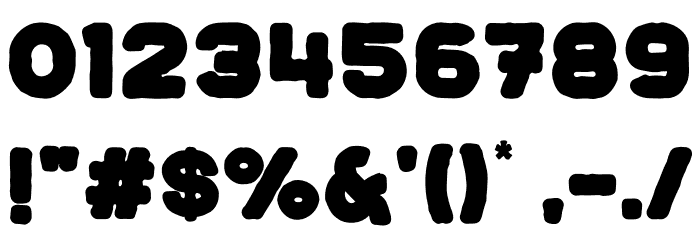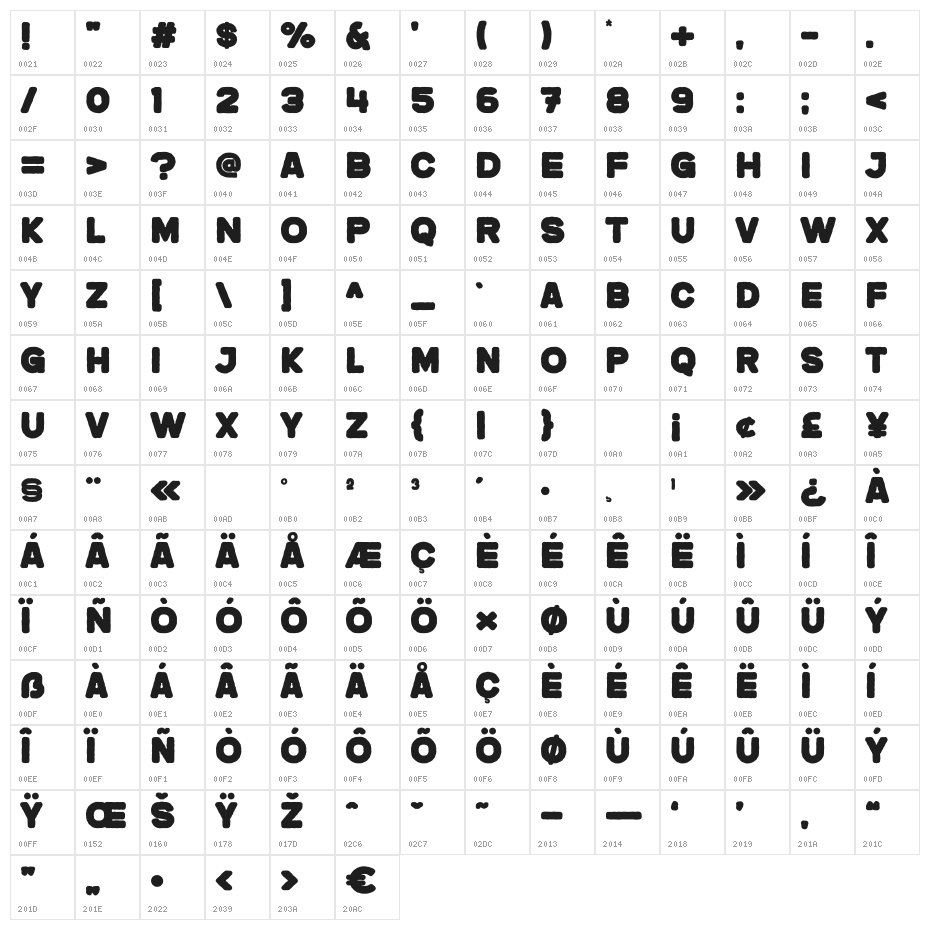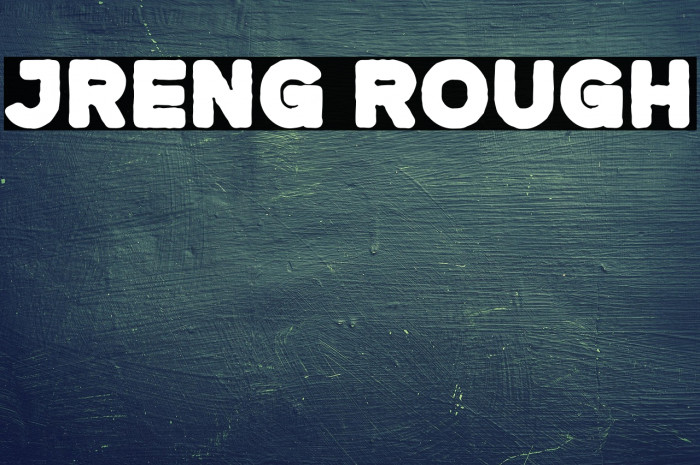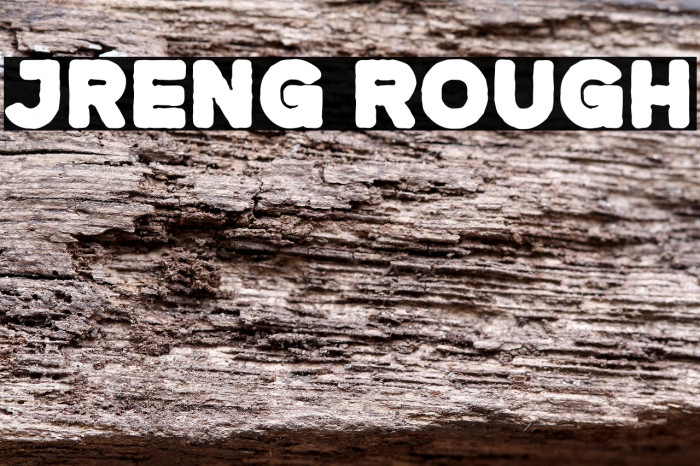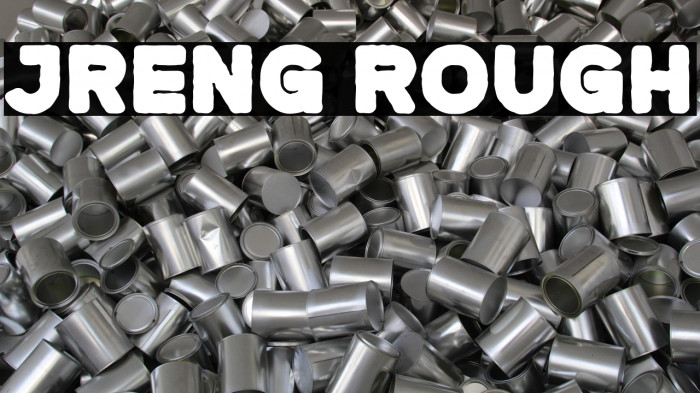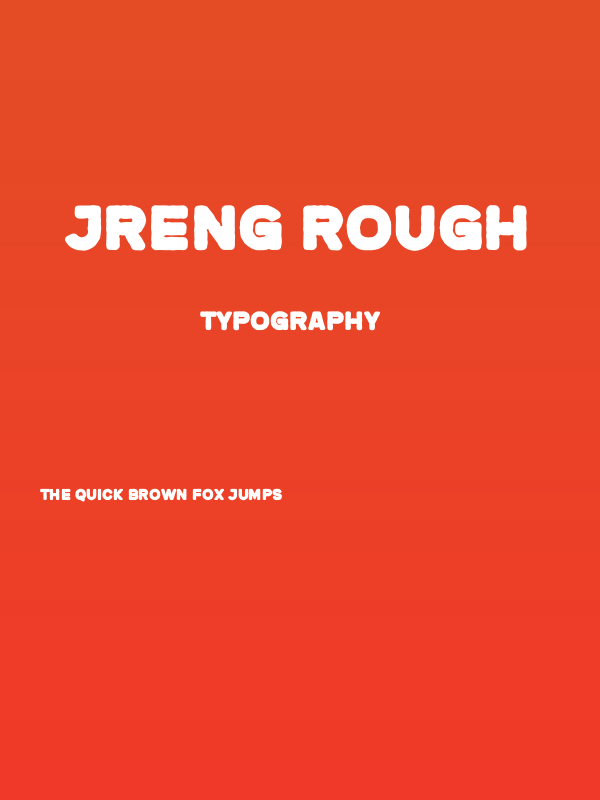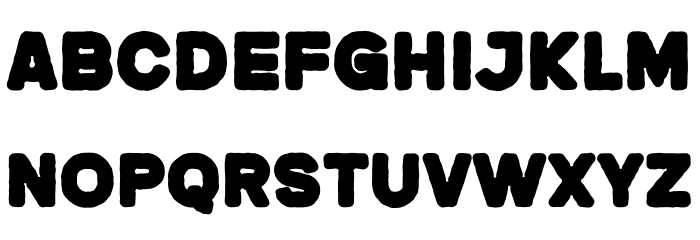
Jreng Rough Font
Jreng Rough Description
This font features a bold and rugged style with a rough texture that gives it a handcrafted appearance. The characters are thick and heavy, creating a strong visual impact. The edges are uneven, adding to its raw and organic feel. This font is highly legible and maintains a consistent weight throughout, making it suitable for attention-grabbing designs. The numbers and special characters share the same bold and rough characteristics, ensuring uniformity across all elements.